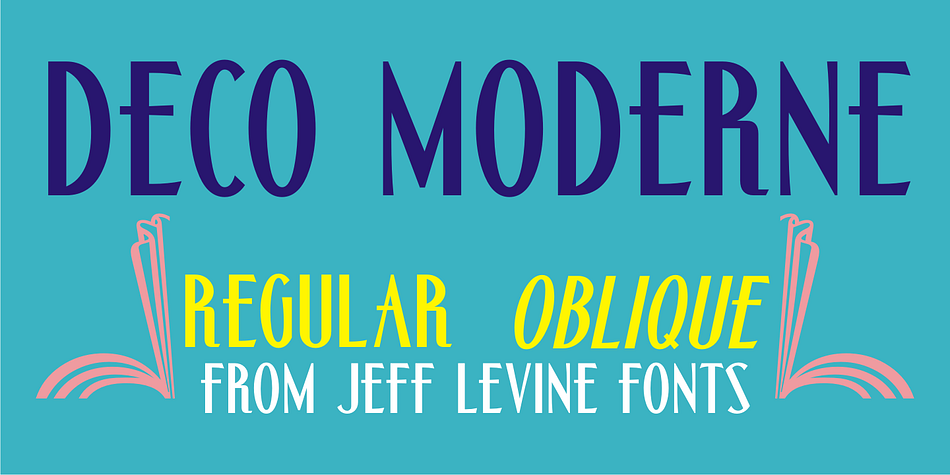
Deco Moderne JNL is a art deco font family. This typeface has two styles and was published by Jeff Levine Fonts.
The model for Deco Moderne JNL was the hand lettered title on the sheet music cover of “Did You Ever See A Dream Walking” (from the 1933 Paramount musical “Sitting Pretty” starring Jack Oakie, Jack Haley and Ginger Rogers).